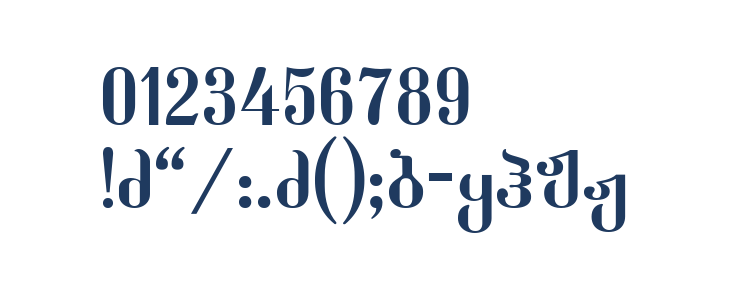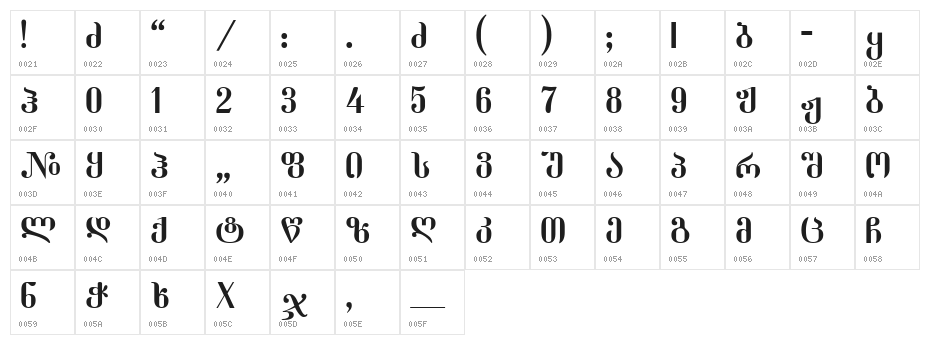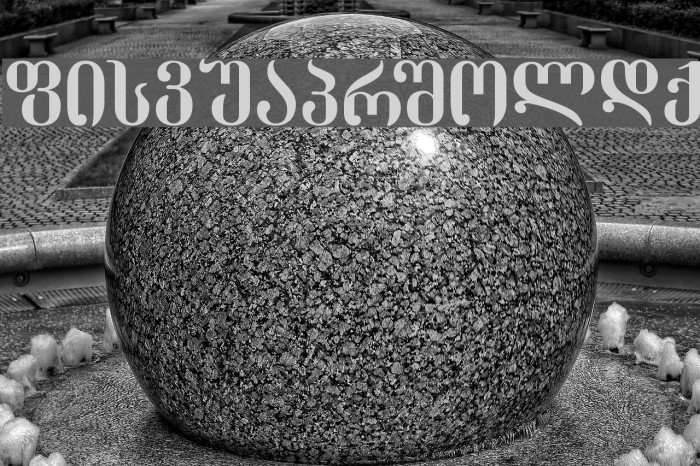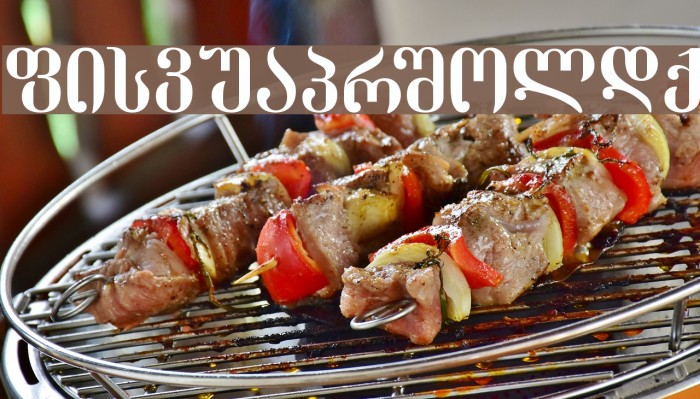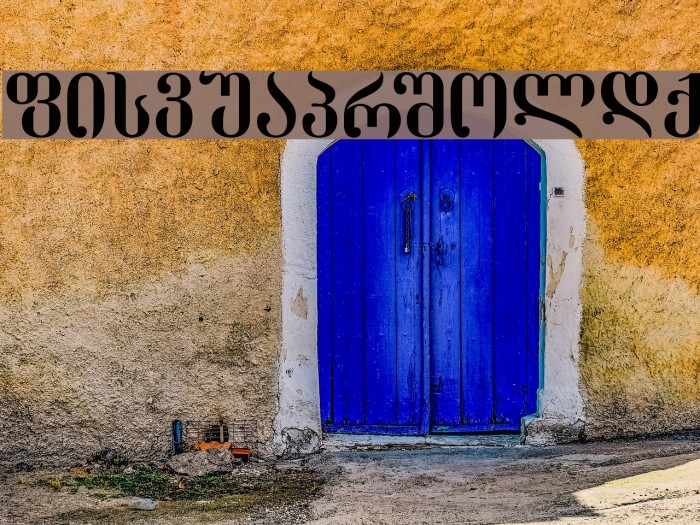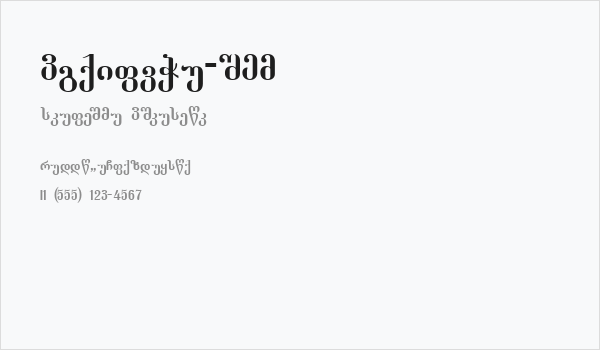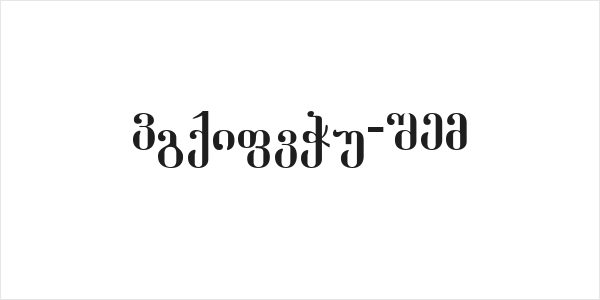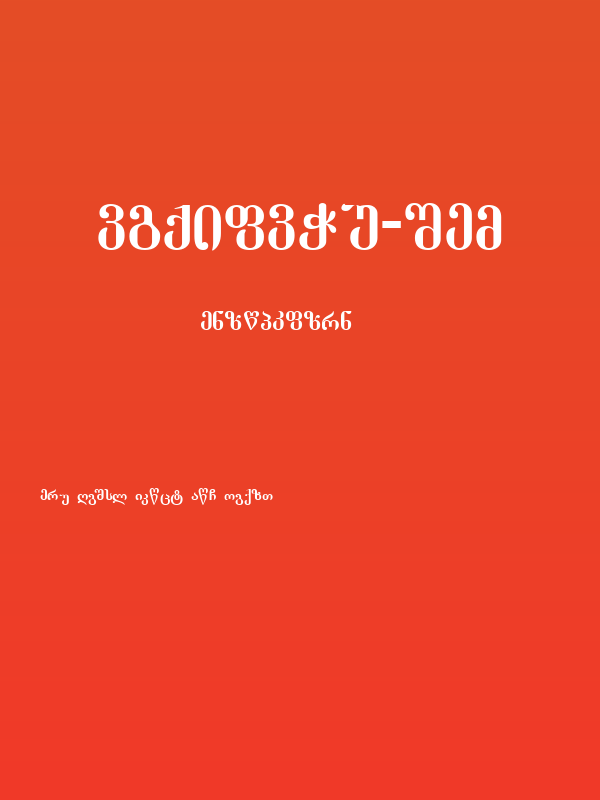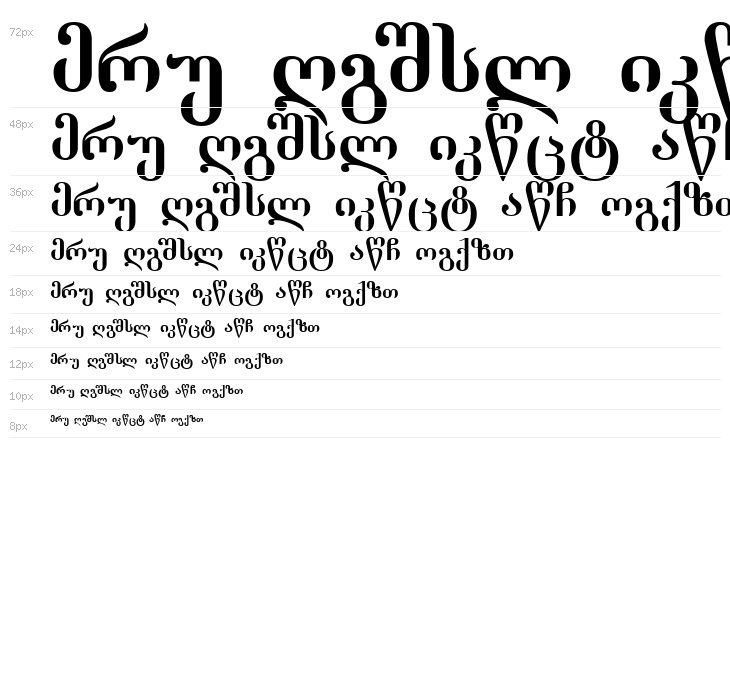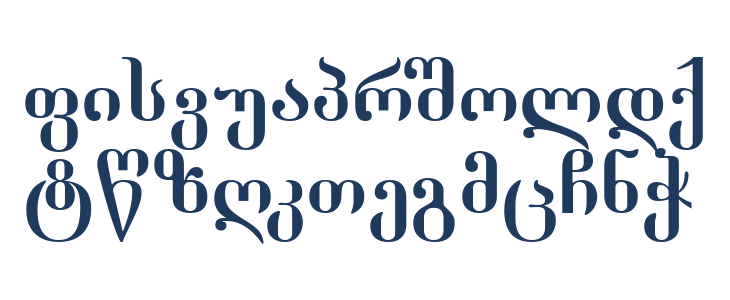
Dumbadze-ITV Font
Dumbadze-ITV Description
This font features a unique and artistic design with a blend of traditional and modern elements. The characters exhibit a high contrast between thick and thin strokes, giving them a bold and dynamic appearance. The curves are smooth and elegant, while the terminals are slightly flared, adding a touch of sophistication. The numerals are distinct and easy to read, maintaining the same stylistic features as the letters. Special characters are creatively designed, complementing the overall aesthetic. This font is visually striking and ideal for projects that require a strong visual impact.
| Proposed Projects | Ideal for branding, poster design, and editorial layouts where a strong visual presence is needed. |